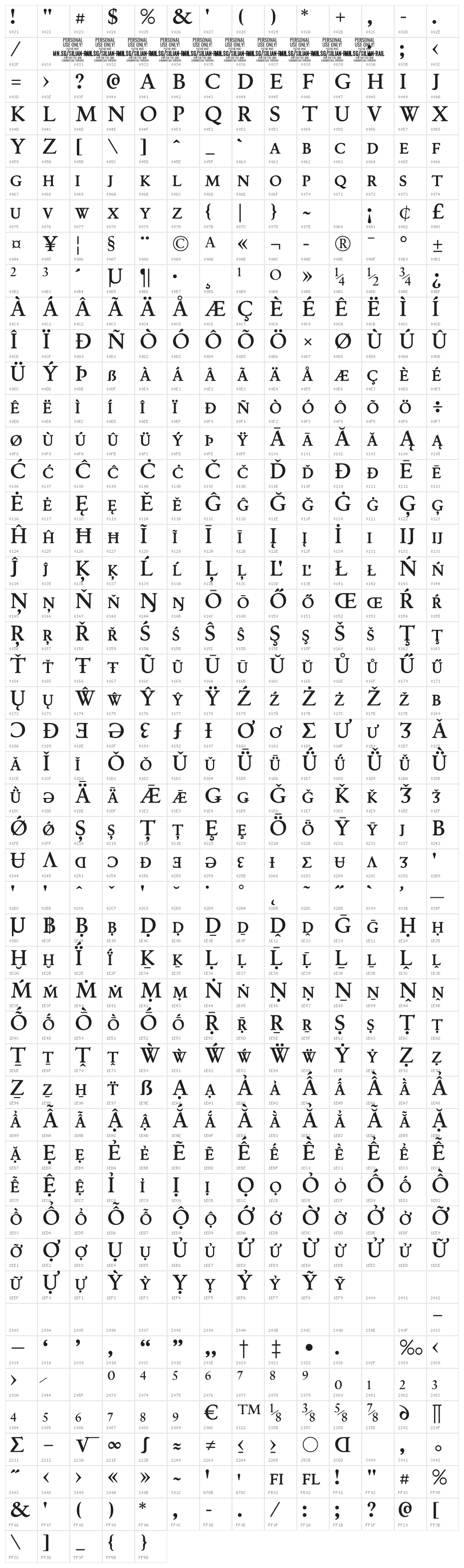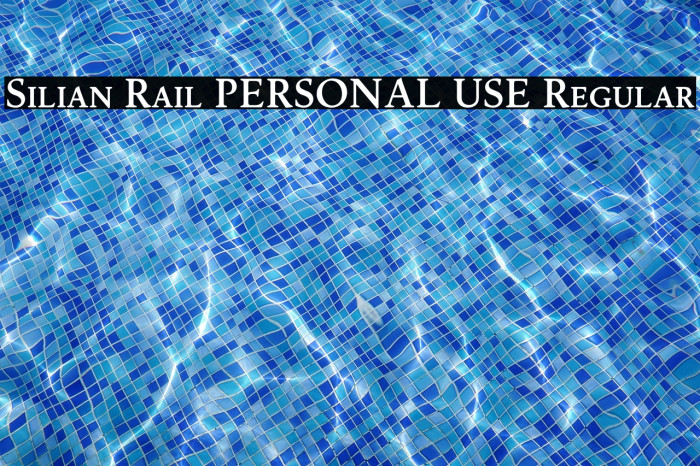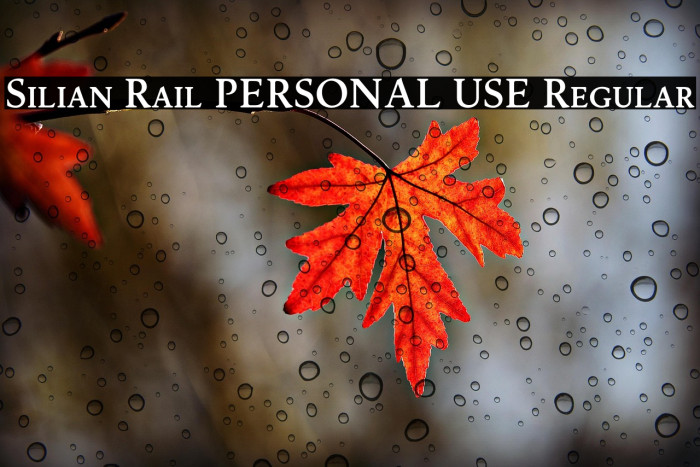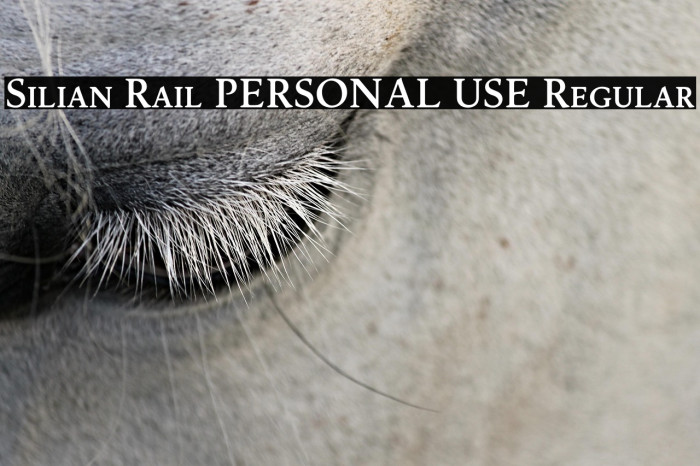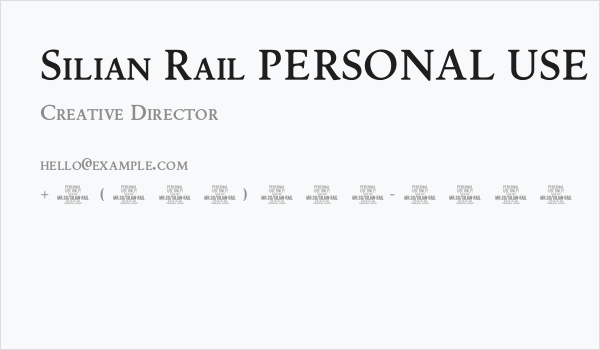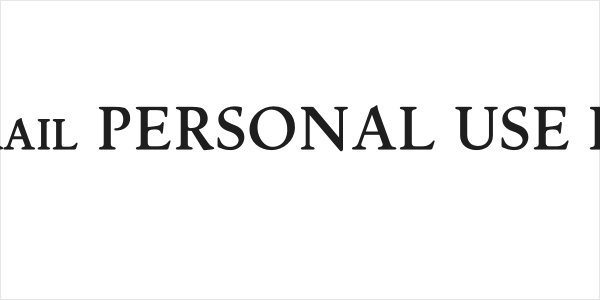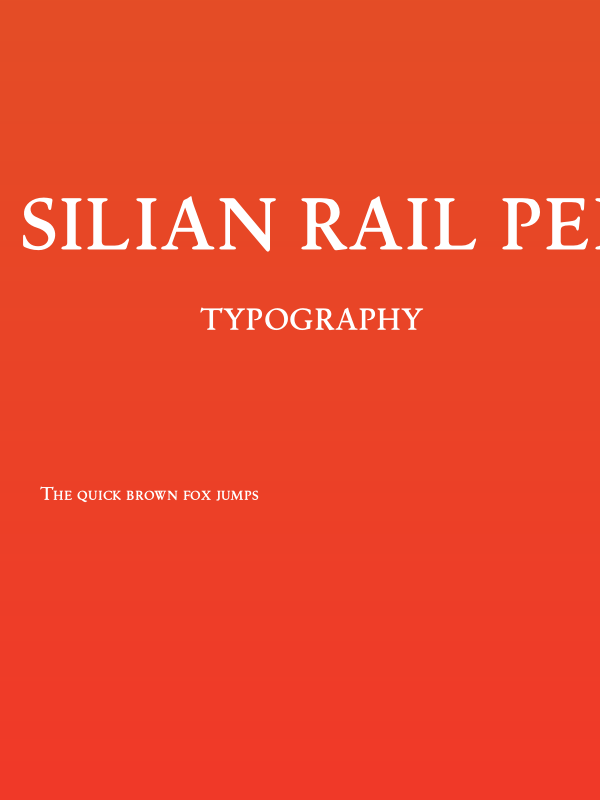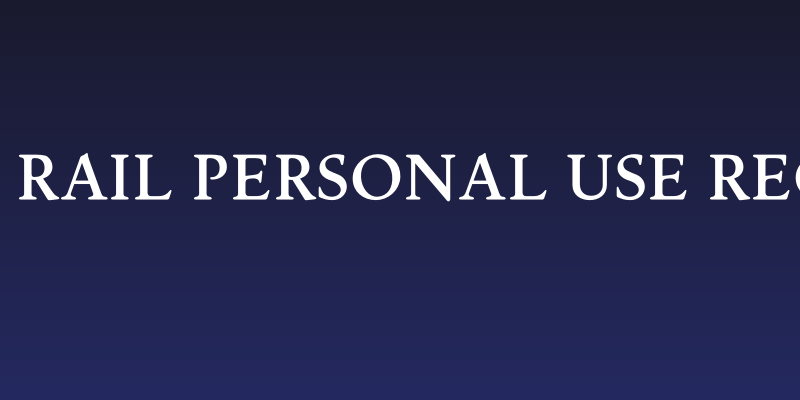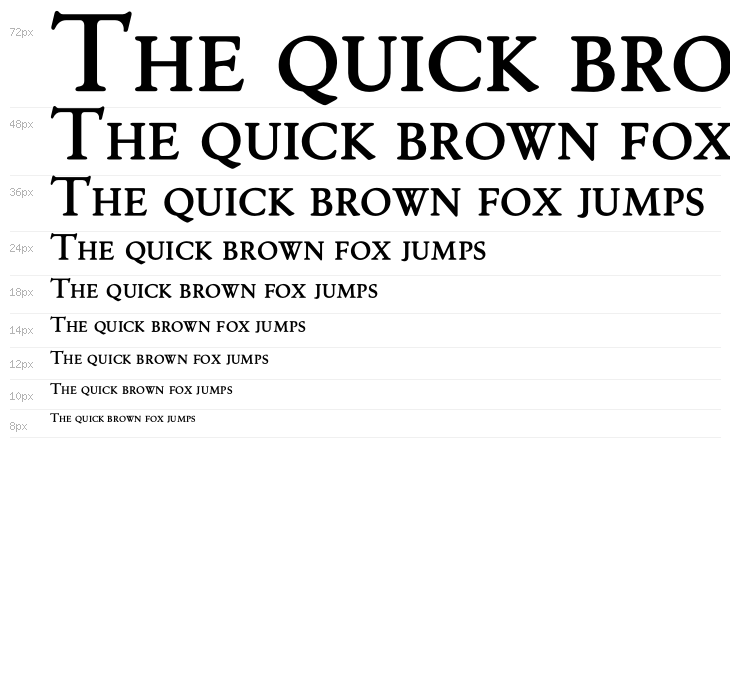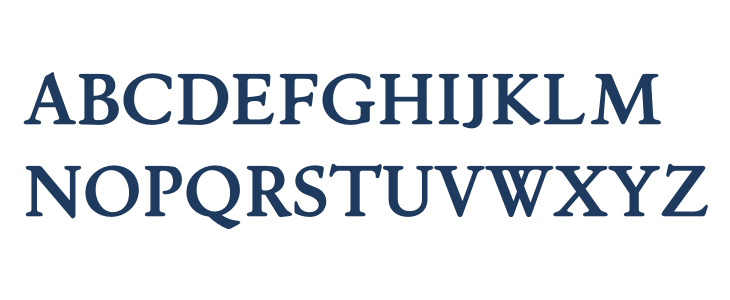
Silian Rail PERSONAL USE Regular Font
Silian Rail PERSONAL USE Regular Description
This font features a classic serif design with a strong presence and elegant curves. The uppercase letters are bold and commanding, with a slight flair on the serifs that adds a touch of sophistication. The lowercase letters maintain a consistent style, offering readability and a traditional feel. The numerals are clear and balanced, complementing the overall aesthetic. Special characters are well-integrated, maintaining the font's cohesive look. This font is ideal for projects that require a formal and timeless appearance.
Overall StyleClassic
Proposed ProjectsIdeal for formal invitations, book covers, and branding materials that require a timeless and sophisticated look.